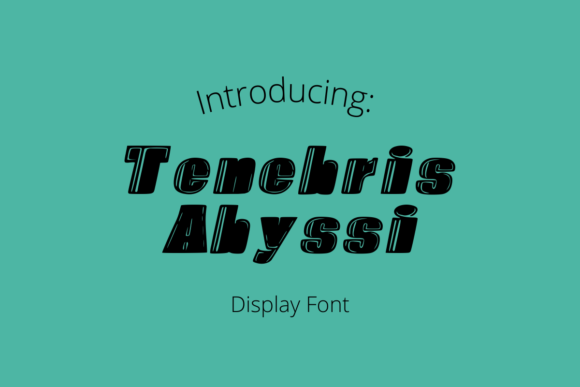
Dive into the depths of darkness and unleash the power of Tenebrys Abyssi, a display font family that's as bold and captivating as the abyss itself. Created by the ingenious Sparkylicious, this font exudes an air of strength and impact that will leave an unforgettable mark on your designs.
Tenebrys Abyssi's bold and chunky letterforms command attention, demanding to be noticed. It's the perfect choice for making a statement, whether you're crafting bold headlines, creating eye-catching posters, or designing powerful branding. Its dark and mysterious aura adds a touch of intrigue and allure, captivating your audience and pulling them into your creative vision.
With Tenebrys Abyssi, you'll have the power to transform your words into works of art. Its unique and captivating style will set your designs apart from the ordinary, ensuring that your message is heard loud and clear. So embrace the darkness and let Tenebrys Abyssi ignite the creative fire within you.
Step into the realm of darkness and discover the boundless possibilities of Tenebrys Abyssi. Unleash the power of bold and impactful typography, and elevate your designs to new heights. Let Tenebrys Abyssi be your guide on this creative journey, and experience the thrill of creating designs that leave a lasting impression.